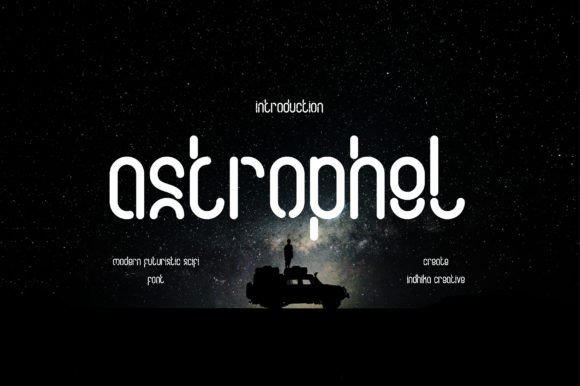
Introduction to Astrophel Font
Introducing Astrophel, a sleek and futuristic decorative font that perfectly encapsulates the spirit of the digital age.
This font presents a masterstroke in monoline style – clean, crisp, and immersed in a modern appeal Exemplifying an avant-garde, technological wave, Astrophel is ideal for infusing science fiction elements and tech-inspired touches into your designs.
Key Features of Astrophel Font
Why Choose Astrophel Font?